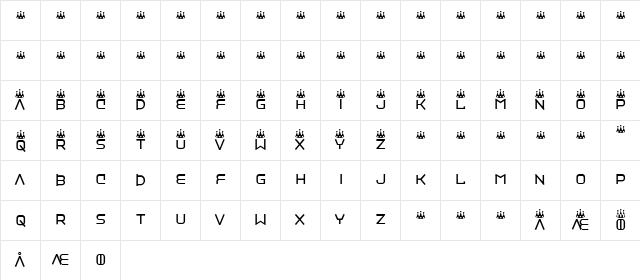
Vinyl repair kit Regular
Design Context for Vinyl repair kit Typeface
Vinyl repair kit is a composed and adaptable typeface that performs quietly and consistently across a wide range of design contexts.